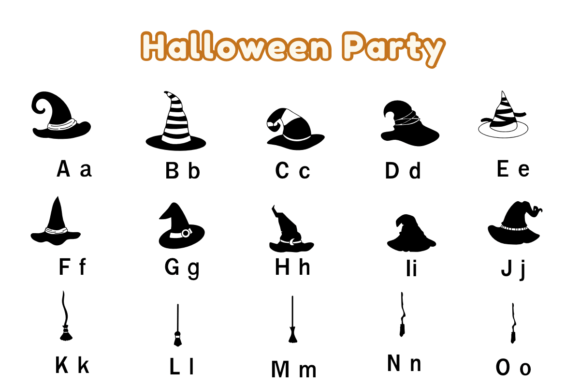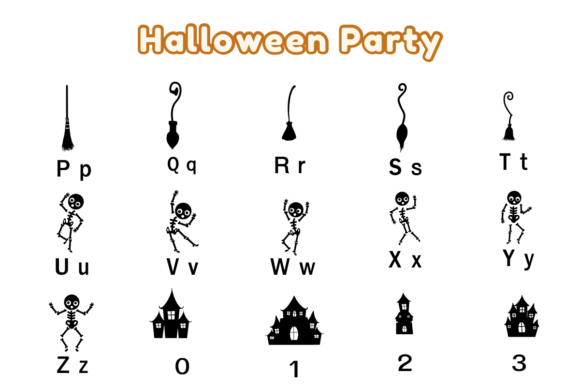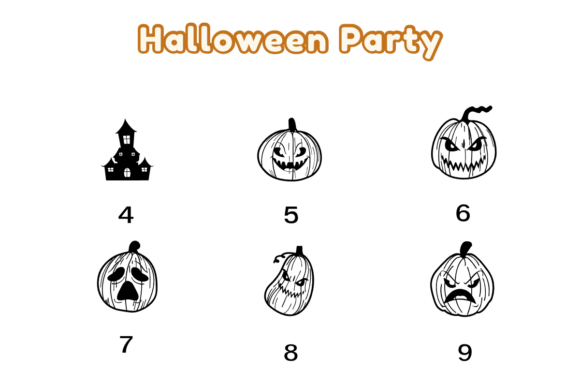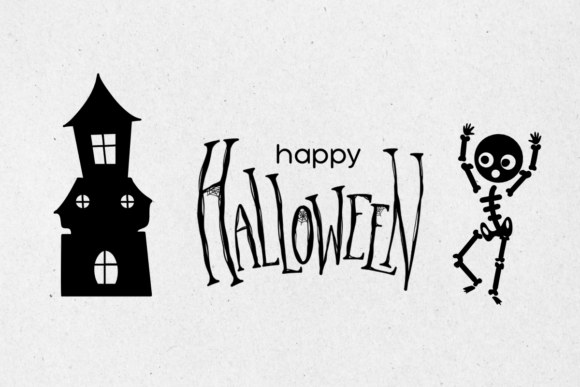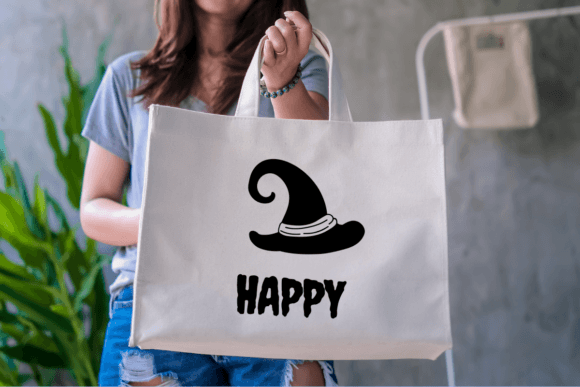
Get Ready for a Spooky Good Time with the Halloween Party Font
As a designer, there’s no denying the thrill of brainstorming new ideas for a project. You’re rummaging through your font library, and suddenly, you stumble upon the perfect match for a spooky-themed project. It’s a moment of pure creative joy, and for many designers, it’s what makes the job so rewarding.
That’s exactly what the Halloween Party Font is designed to evoke. This unique font is a treasure trove of Halloween symbols, with each letter shaped like a different spooky image, from pumpkins and skeletons to witches’ hats. It’s the perfect addition to any Halloween-themed project, whether it’s a party invitation, a decoration, or a social media post.
For designers, the Halloween Party Font is a valuable asset, offering a creative solution for clients looking to add a festive touch to their projects. With its versatility and Halloween spirit, it’s an essential tool for anyone looking to create a memorable and spooky-good design.
Halloween Party Font Key Features
- Unique Characteristics: The Halloween Party Font features a spooky and playful design, with intricate details and ornaments, perfect for creating a festive atmosphere.
Halloween Party Font Review
I recently had the chance to work with the “Halloween Party Font” and I must say, it’s a unique and fun addition to any spooky-themed design. ✨ The font’s bold and playful style makes it perfect for creating eye-catching posters, invitations, and social media graphics.
Here are some of the things that I think work well with this font:
- Its versatility in creating different moods and atmospheres
- Easy to read and understand, even at smaller font sizes
- Works well with a variety of color combinations and design elements
However, I do have some concerns about the font’s limitations:
- It may be too loud or overwhelming for more subtle designs
- Not suitable for professional or corporate branding
- May not be ideal for long blocks of text
Overall, I think the “Halloween Party Font” is a great choice for designers looking to add some spooky flair to their designs. While it may not be suitable for every project, it’s definitely a fun and creative option to have in your design arsenal.
The Halloween Party Font is ideal for creating spooky invitations, posters, and decorations for Halloween parties, haunted houses, and other fall-themed events.
It’s also great for creating spooky social media posts, blog titles, and other digital content.
With its bold, playful design, the Halloween Party Font is sure to add a touch of Halloween spirit to any project.